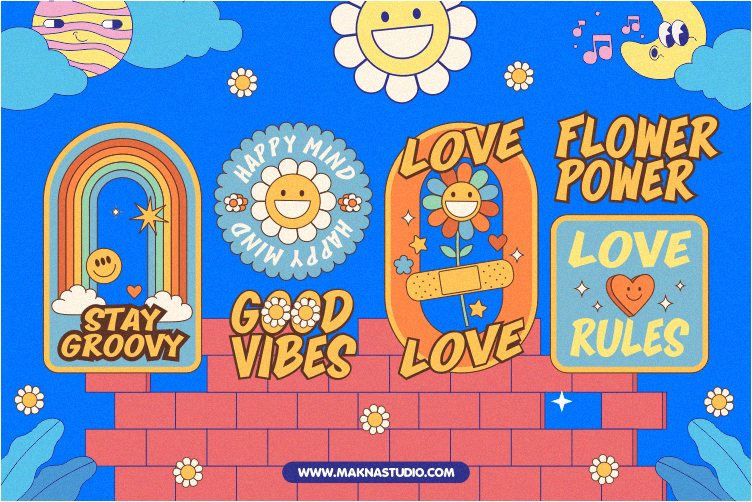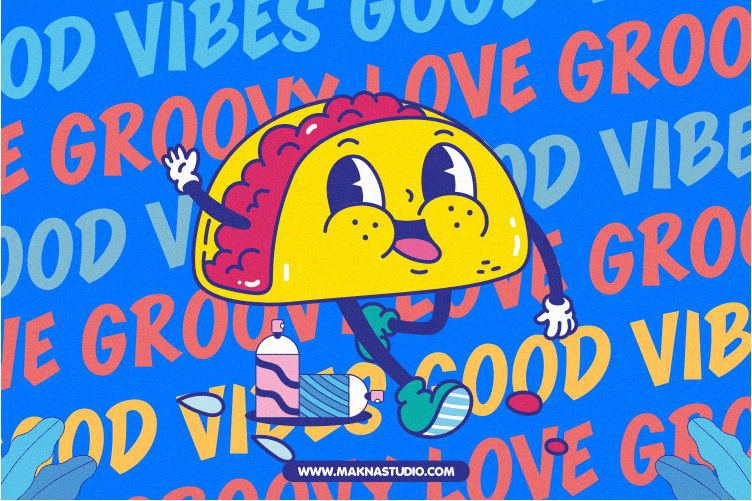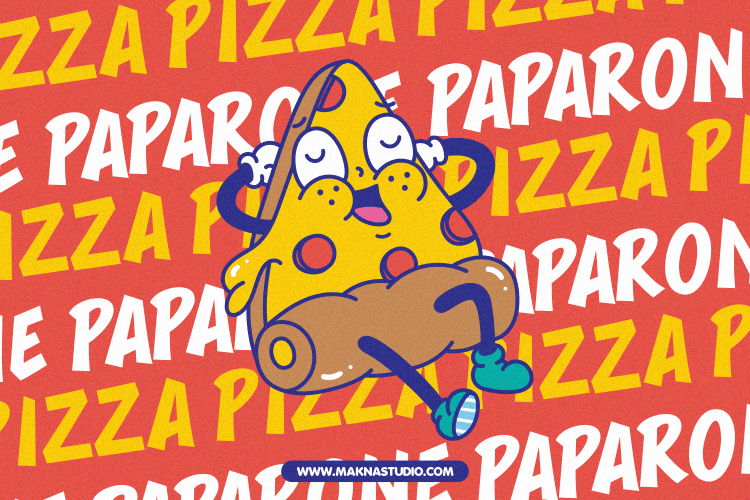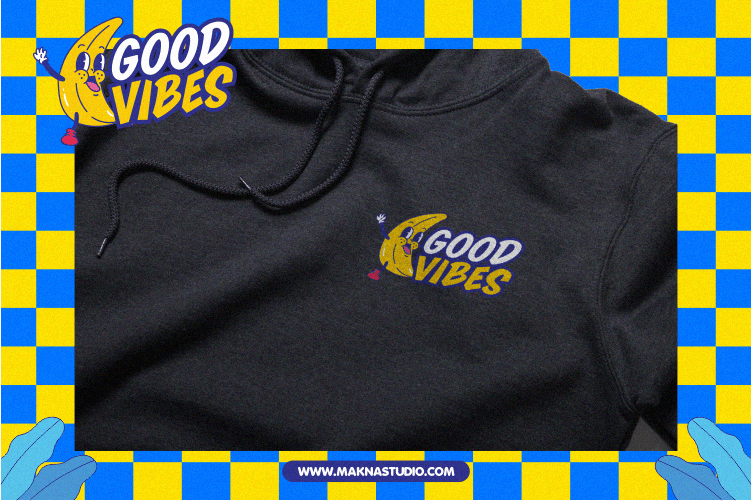
Blomberg Font
Blomberg Display Font is a display typeface with bold shape and shout out. It’s narrow powerful shapes lend itself to strong design, whilst the bold give it an authentic voice. brings a modern and strong impression to your design. With a bold style, make this font suitable as the main text / header text on a website or layout design.